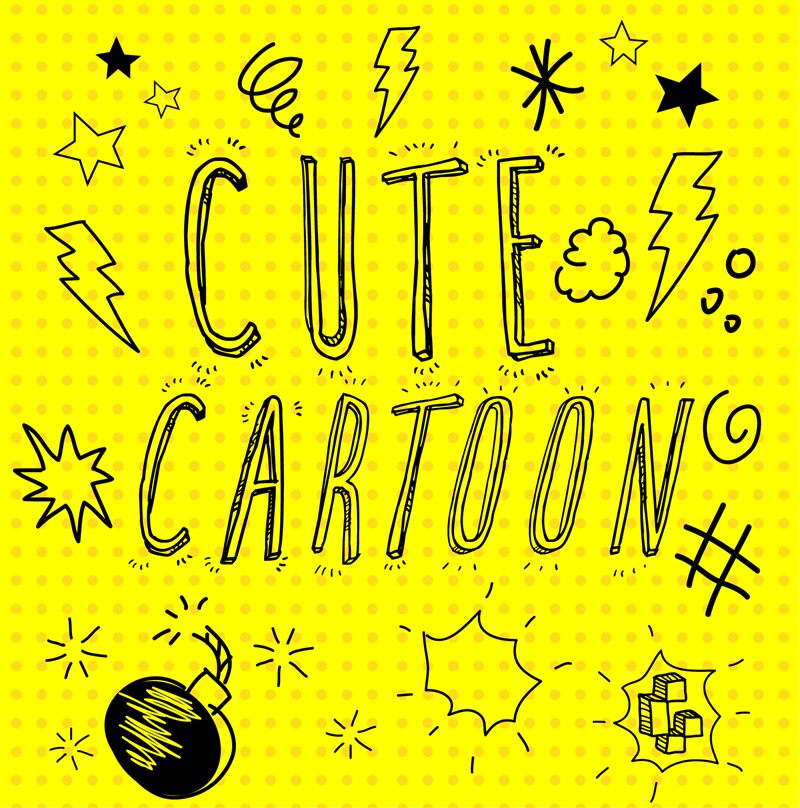
Cute Cartoon Italic
Cute Cartoon Italic font, designed by Galdino Otten Fonts, captures a whimsical and sketch-like essence perfect for creative expressions. Its illustrative and animated feel is rooted in classic cartoon styles, making it suitable for projects that require an informal yet engaging touch.
This free display font works perfectly in children's books, playful branding, event promotions, greeting cards, posters, social media graphics, packaging design for toys or snacks, educational materials for kids, comics or graphic novels with a quirky twist.